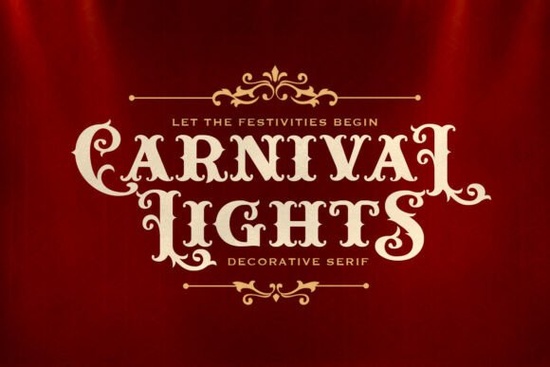
If you're looking for a font that brings a touch of nostalgia and joy to your designs, the Carnival Lights Font is a great choice. This retro decorative serif with curly slab features all caps characters with varying heights between uppercase and lowercase, making it a versatile option for a wide range of creative projects.
Why Choose Carnival Lights Font?
The Carnival Lights Font is perfect for anyone who wants to add a festive and joyful vibe to their work. Whether you're designing a logo, creating branding materials, or crafting posters, this font can help make your project stand out. Its unique style and decorative elements give it a playful and inviting feel, ideal for circus-themed parties or any event that needs a bit of extra cheer.
Key Features of Carnival Lights Font
- Retro Decorative Serif: The font has a classic, vintage look with curly slab serifs, adding a unique and charming touch to your designs.
- All Caps Characters: Both uppercase and lowercase letters are available in all caps, but with different heights, allowing for creative and dynamic text arrangements.
- Stylish Alternates: Includes stylish alternates for the uppercase letters, giving you more options to customize and enhance your designs.
- Festive and Joyful: Perfect for projects that need a lively and cheerful appearance, such as logos, branding, quotes, and posters.
- Italic Version: Comes with an italic version, providing even more versatility and options for your design needs.
- Multi-Language Support: Supports multiple languages, making it a practical choice for a global audience.
How to Use Carnival Lights Font in Your Projects
Incorporating the Carnival Lights Font into your designs is easy and can significantly enhance the overall aesthetic. Here are some ideas on how to use it effectively:
- Logo Design: Use the font to create a memorable and eye-catching logo that stands out. The unique style and decorative elements can help your brand leave a lasting impression.
- Branding Materials: Apply the font to business cards, brochures, and other branding materials to maintain a consistent and joyful theme across all your marketing collateral.
- Posters and Flyers: Create vibrant and engaging posters and flyers for events, promotions, or announcements. The festive look of the font will grab attention and set the right tone.
- Social Media Graphics: Use the font in social media graphics to add a touch of fun and creativity to your posts. It's perfect for sharing quotes, announcements, or promotional content.
- Print-on-Demand Products: Incorporate the font into designs for t-shirts, mugs, and other print-on-demand products. The joyful and festive style will appeal to a wide audience.
Tips for Using Carnival Lights Font Effectively
To get the most out of the Carnival Lights Font, here are some practical tips:
- Balance with Simplicity: While the font is decorative and festive, balance it with simpler fonts to avoid overwhelming your design.
- Use Stylish Alternates: Experiment with the stylish alternates to add variety and interest to your text.
- Consider Context: Make sure the font fits the context and tone of your project. It works well for joyful and festive themes but may not be suitable for more serious or formal designs.
- Test Different Sizes: Play around with different sizes to see what works best for your specific design. The font's unique style can look great in both large and small formats.